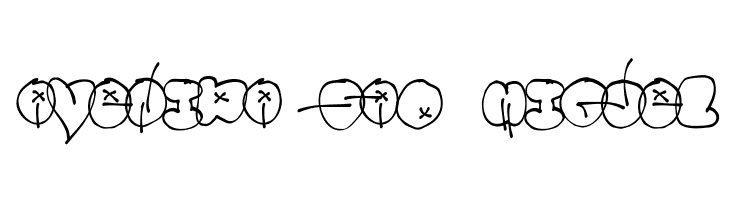
A playful, handwritten font with a whimsical and dynamic style.
A playful, casual handwritten font with uneven strokes and a lively appearance.
A playful, casual handwritten font with a dynamic and lively feel.
A playful, handwritten font with irregular, spontaneous strokes.
A playful, casual handwritten font with irregular strokes and a spontaneous feel.
A playful, handwritten font with bold, irregular strokes and a casual vibe.
A playful, handwritten font with a casual and whimsical style.
A playful, hand-drawn font with a whimsical and casual style.
A playful, handwritten font with a casual and dynamic style.
A playful, casual handwritten font with dynamic strokes and a personal touch.
A playful, casual handwritten font with dynamic and flowing strokes.
A playful, casual handwritten font with flowing strokes and a friendly tone.
A playful, casual handwritten font with irregular strokes and a dynamic slant.
A casual, handwritten font with bold, dynamic strokes and a playful style.
A playful, casual handwritten font with fluid, dynamic strokes.
A playful, handwritten font with fluid and dynamic strokes.
A playful and casual handwritten font with fluid strokes and a personal touch.
A playful, handwritten font with a casual and whimsical style.
A playful and casual script font with flowing, connected letterforms.
A whimsical, hand-drawn font with playful curls and a lively style.
A playful, handwritten font with a casual and friendly vibe.
A casual and playful handwritten font with dynamic strokes.
A playful, handwritten font with dynamic strokes and whimsical loops.
A playful, casual handwritten font with loose, flowing strokes.
A playful, casual handwritten font with flowing strokes and a lively aesthetic.
A playful, whimsical handwritten font with thin, flowing lines.
A whimsical handwritten font with lively, irregular strokes.
A playful, handwritten font with doodle-like embellishments and a casual style.
A playful, informal handwritten font with a casual and friendly vibe.
A playful, informal handwritten font with bold, irregular strokes.
A playful, handwritten font with a casual and dynamic style.
A bold, expressive handwritten font with dynamic strokes and artistic flair.
A playful, hand-drawn font with bold, uneven strokes and a casual style.
A bold, playful handwritten font with expressive strokes and a casual vibe.
A playful, casual handwritten font with irregular strokes.